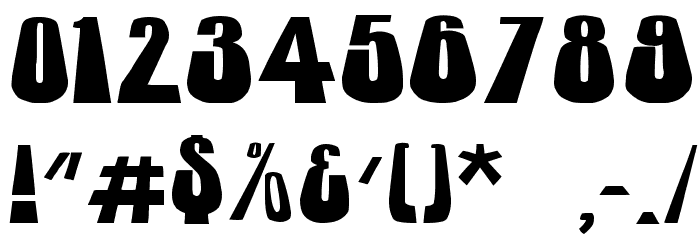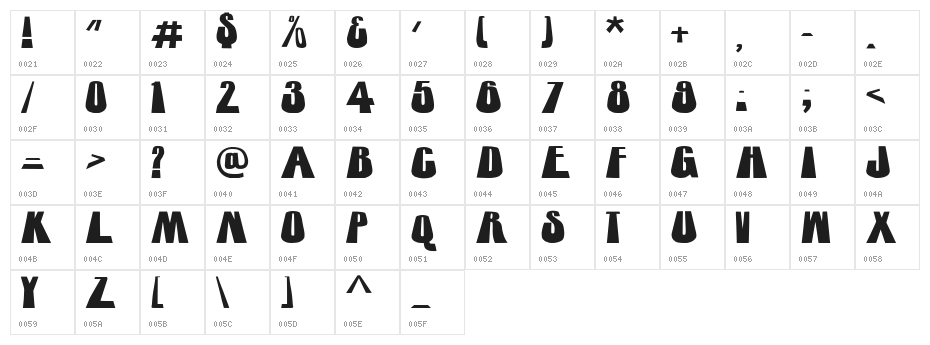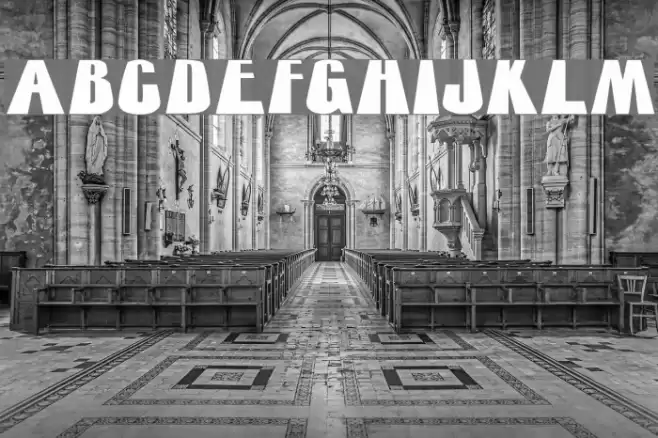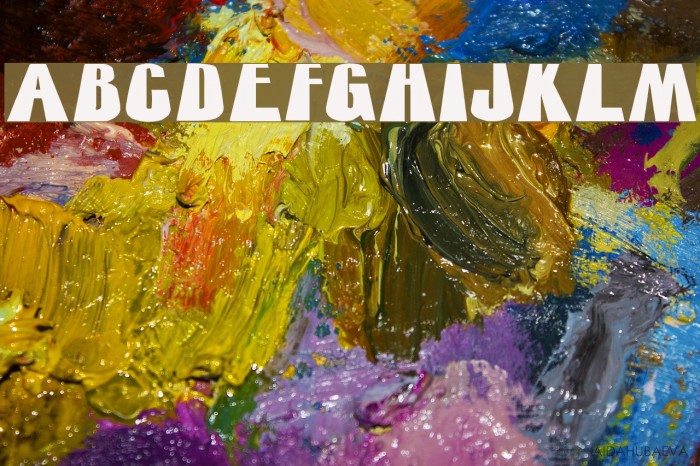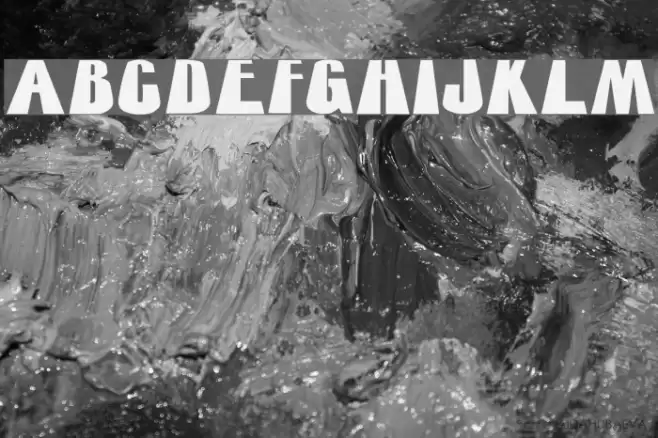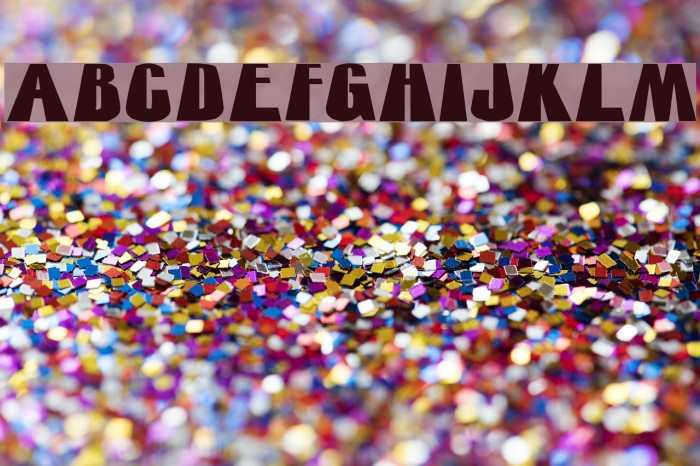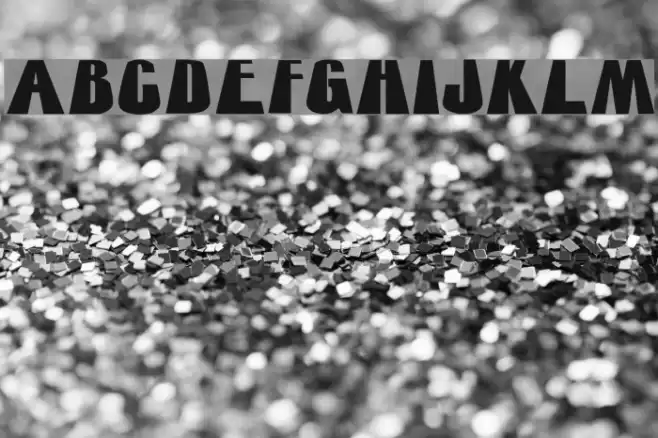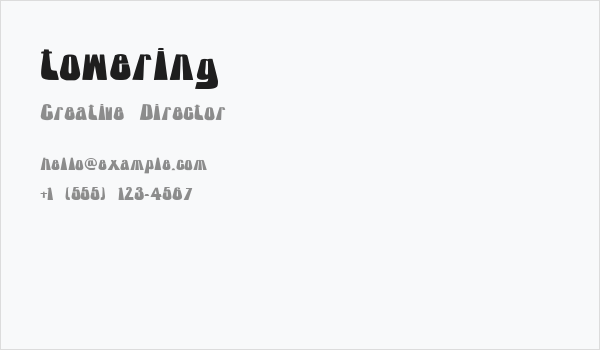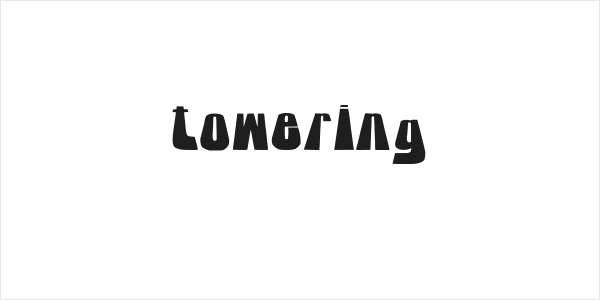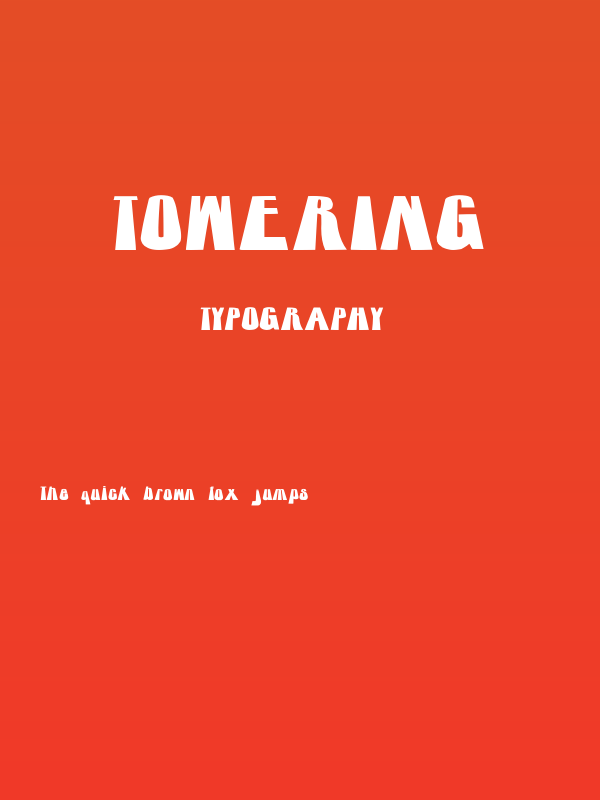
towering Font
towering Description
This font features a bold and striking design with a strong presence. The characters are wide and have a distinct, angular style that gives them a modern and edgy look. The uppercase letters are particularly bold, with a unique geometric flair that makes them stand out. The lowercase letters maintain the same boldness, with slightly more rounded edges, providing a nice contrast to the sharpness of the uppercase. The numbers and special characters follow the same design principles, ensuring consistency throughout. This font is perfect for making a statement and grabbing attention.
| Proposed Projects | Ideal for posters, headlines, branding, and any project needing a strong visual impact. |